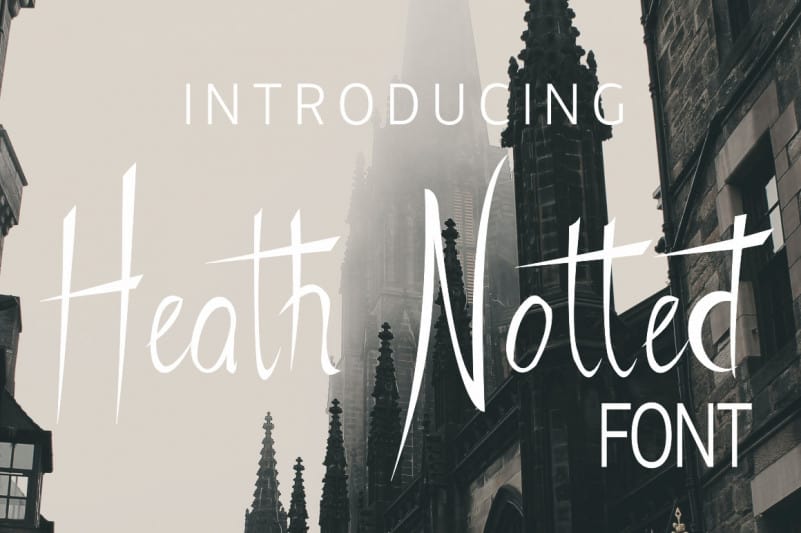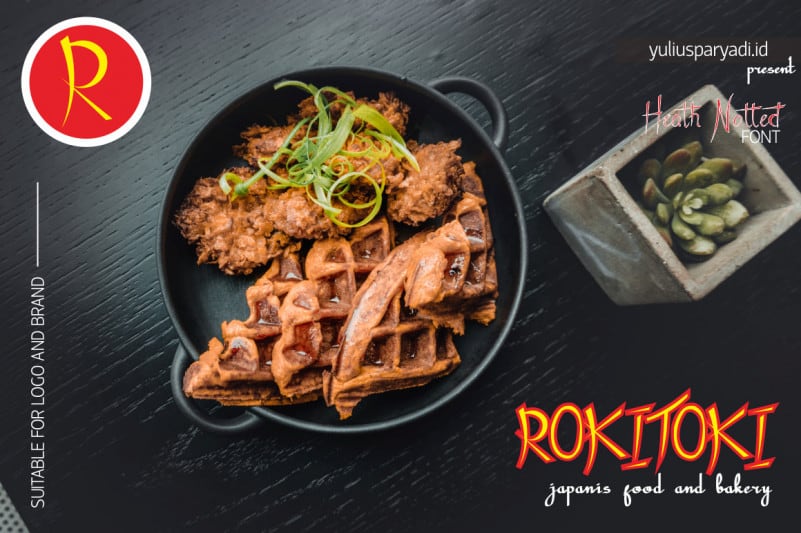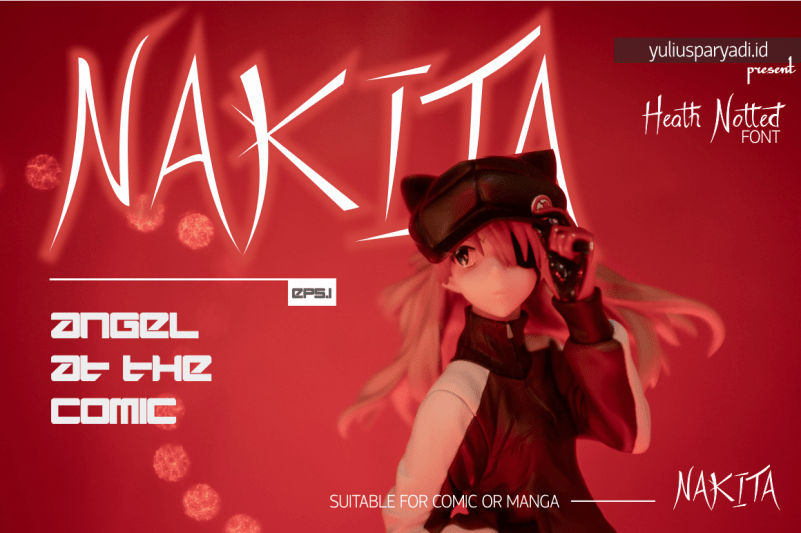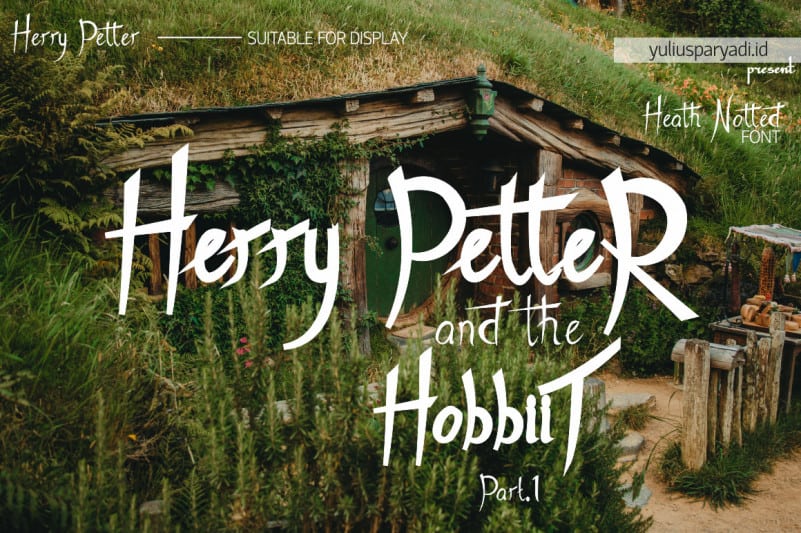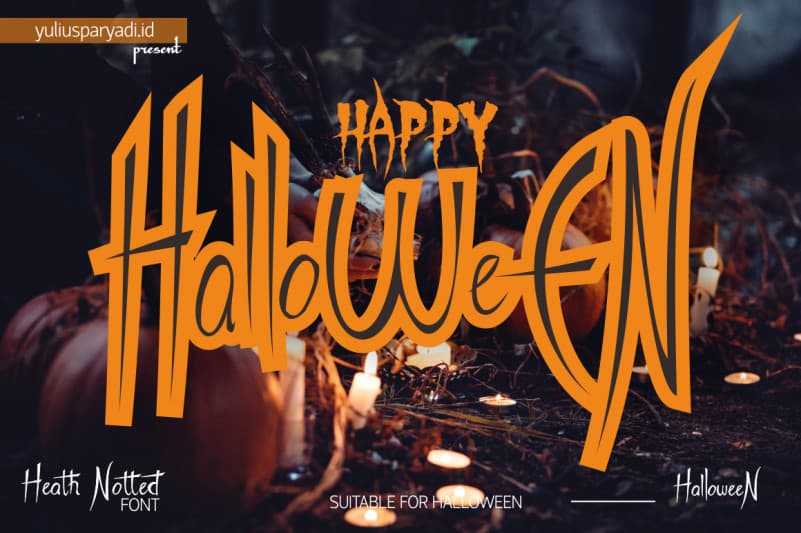
Heath Notted Script Font
Heath Notted Script Font is suitable for display like poster, halloween, witch theme. We created it inpired by the night, because some times night is not always just dark, but sometimes it’s beautiful.
– full set uppercase and lowercase letter;
– large number of punctuations;
– ligatures, and swash. (Full Version)